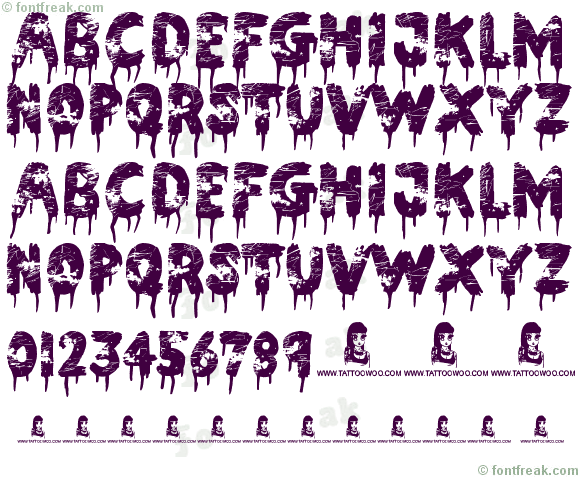
Nothing To Lose
About Nothing To Lose
The "Nothing To Lose" font, created by Jonathan S. Harris, is a striking display typeface that captures attention with its bold and expressive style. This font falls into the decorative category, characterized by its unique, hand-crafted appearance that evokes a sense of raw energy. The strokes exhibit a rough, textured finish, giving the impression of paint splatters or graffiti, which enhances its artistic flair. The weight is notably heavy, with a strong contrast between thick and thin lines, while the spacing offers an open feel that ensures readability even in eye-catching designs.
This font is particularly well-suited for a variety of creative applications. It excels in contexts like music event posters, where the edgy aesthetic can resonate with a youthful audience. Additionally, it can make a memorable statement on clothing graphics, especially for streetwear brands aiming to convey a rebellious spirit. "Nothing To Lose" is also a fantastic choice for promotional materials or flyers for art exhibitions, as it embodies a contemporary vibe that appeals to art enthusiasts. Small business owners looking to differentiate their brands will find this font effective for packaging design and labels, adding a distinctive touch to their products.